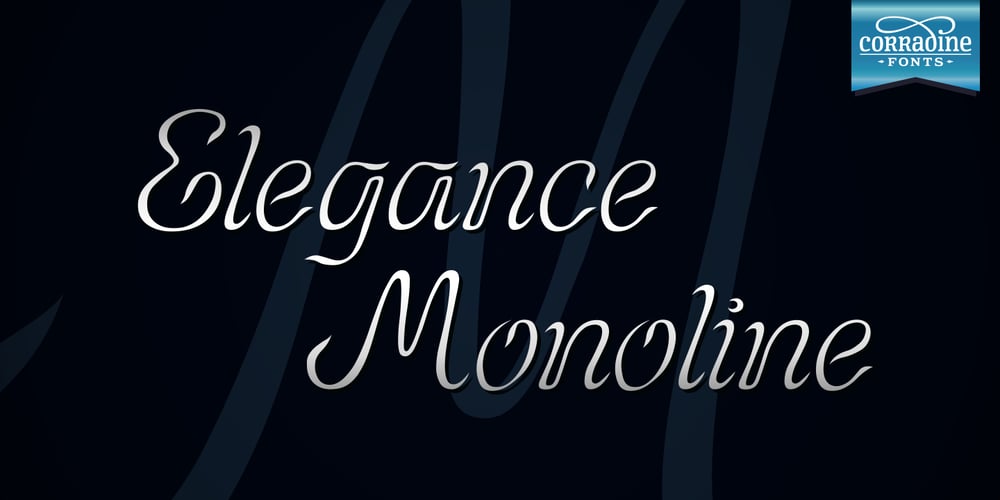
Elegance Monoline Font Family was designed by Manuel Eduardo Corradine and published by Corradine Fonts. Elegance Monoline contains 1 styles and family package options. Elegance Monoline is ideal for invitations, greeting cards, logotypes, or anywhere a touch of elegance is desired.